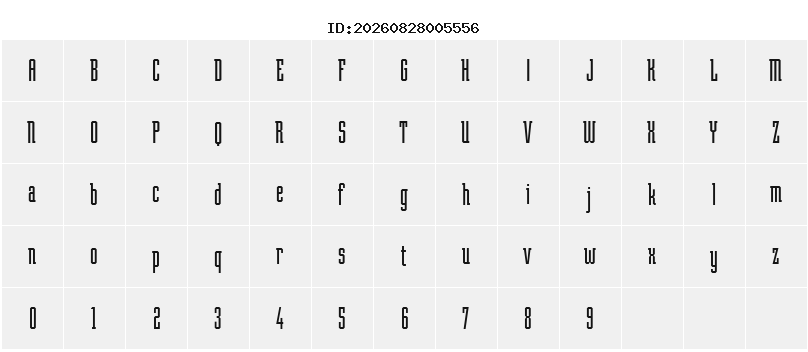
Tufnell Preview
• Font Name: Tufnell
• Full Font Name: Tufnell-Regular
About Tufnell.ttf
Tufnell.ttf is a modern, elegant sans-serif font designed for ultimate readability and visual harmony. Perfect for branding, headlines, web design, and print materials.